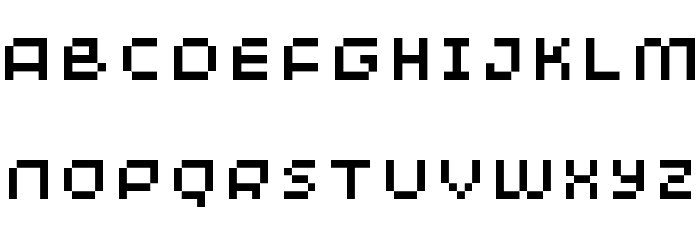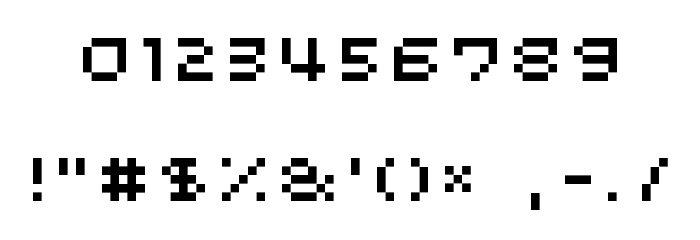
Minimum Font
This font features a pixelated, blocky style reminiscent of early digital displays and retro video games. Each character is constructed with a grid-like precision, giving it a distinctly geometric appearance. The uppercase and lowercase letters maintain a consistent height, contributing to a uniform look. The numerals and special characters follow the same design principles, ensuring visual harmony across all glyphs. The font's simplicity and clarity make it highly legible, even at smaller sizes, while its nostalgic aesthetic evokes a sense of classic arcade games and early computing.
A pixelated, blocky font with a retro digital style.
- Proposed Projects: Ideal for retro-themed designs, video game graphics, digital art projects, and any creative work that seeks to evoke nostalgia for early computing and arcade games.
- Overall Style: Retro, Digital
- Use Case: Headlines, Logos, Digital Art